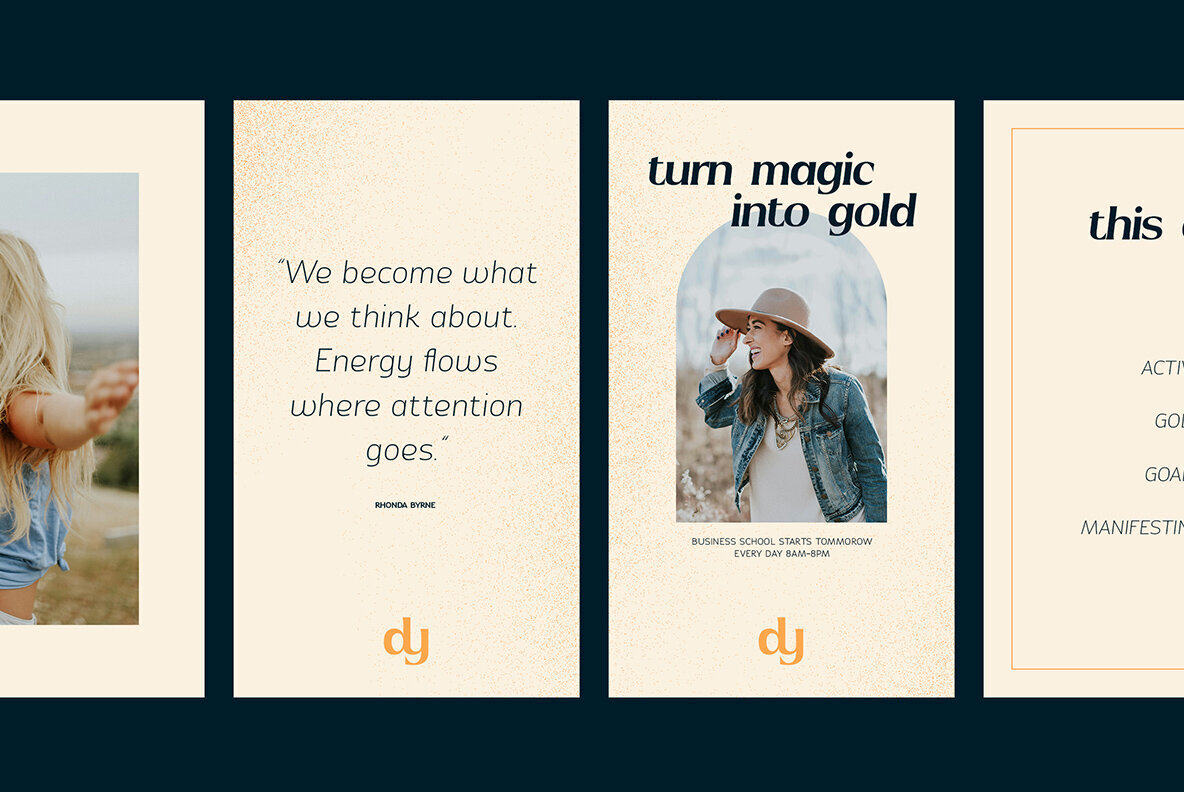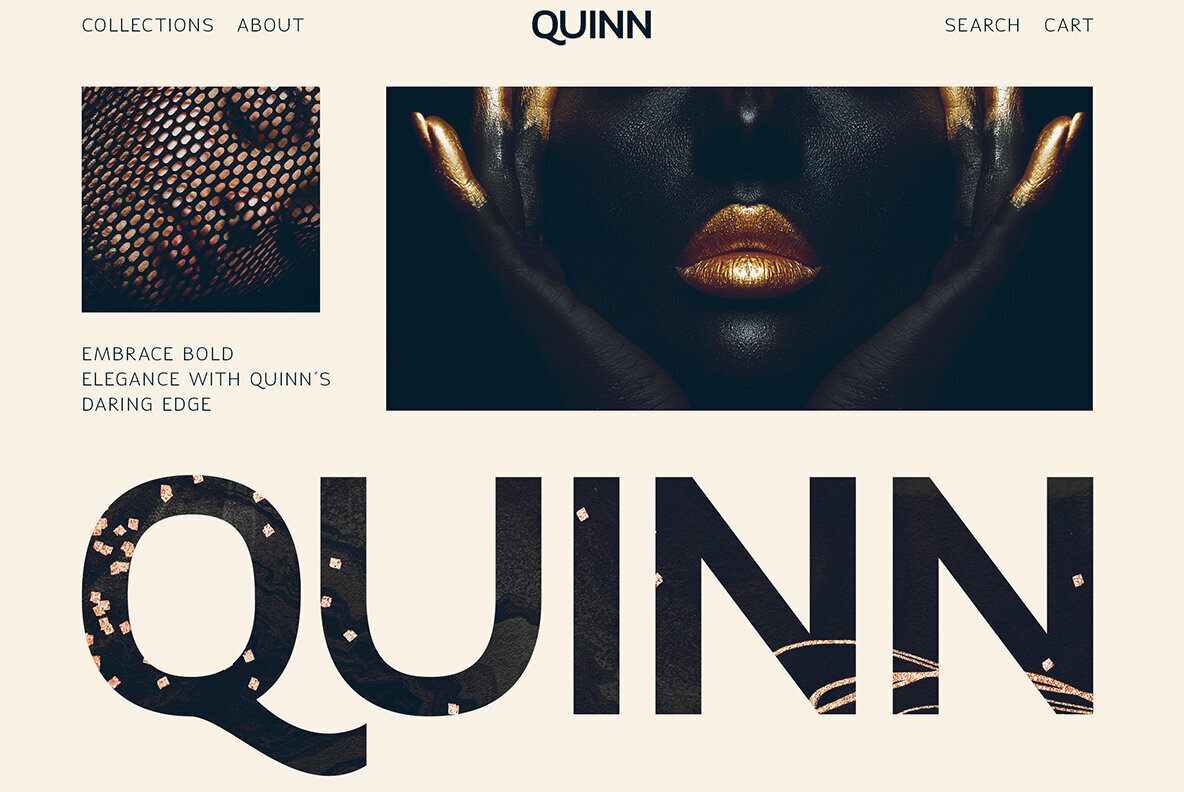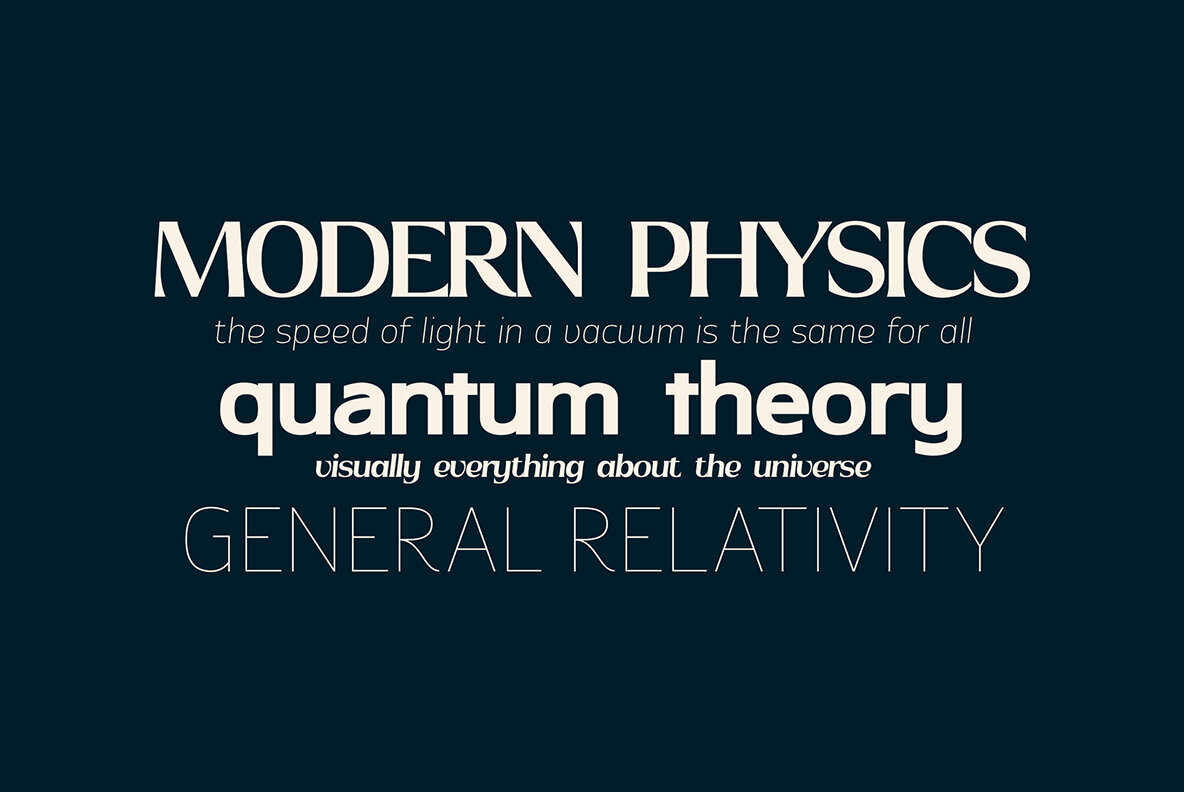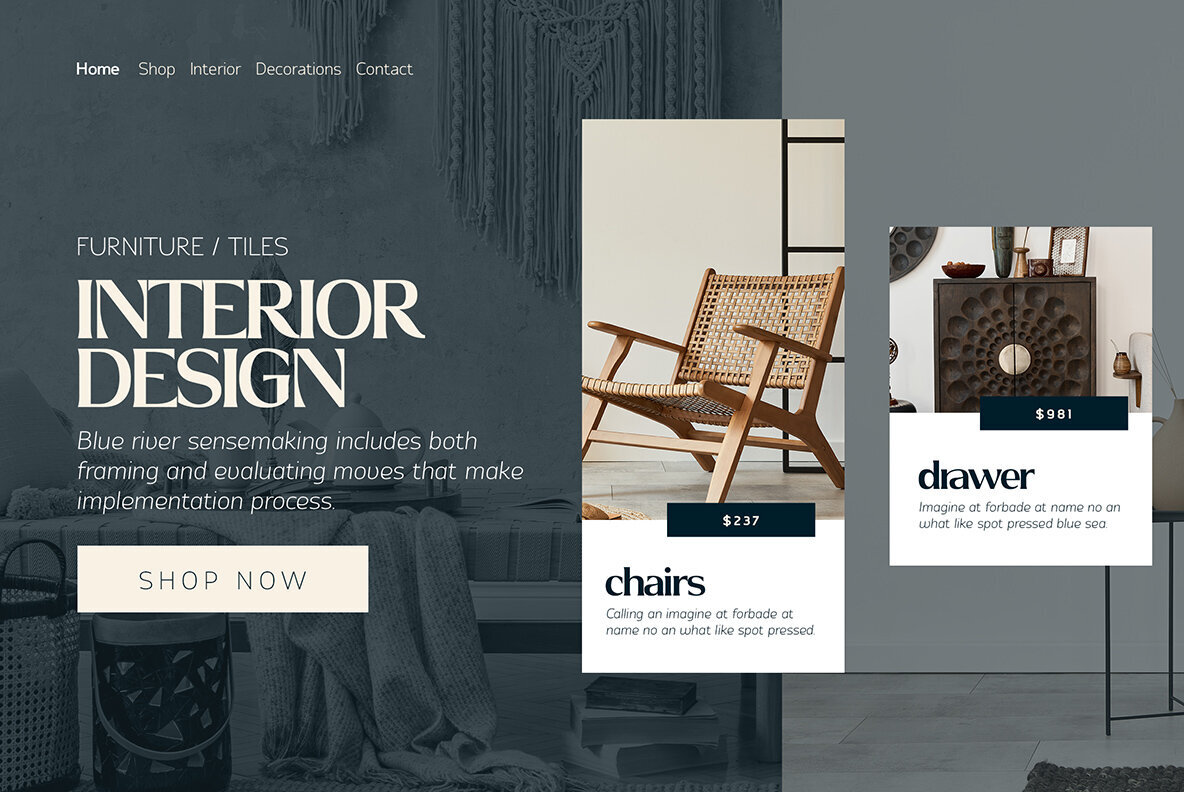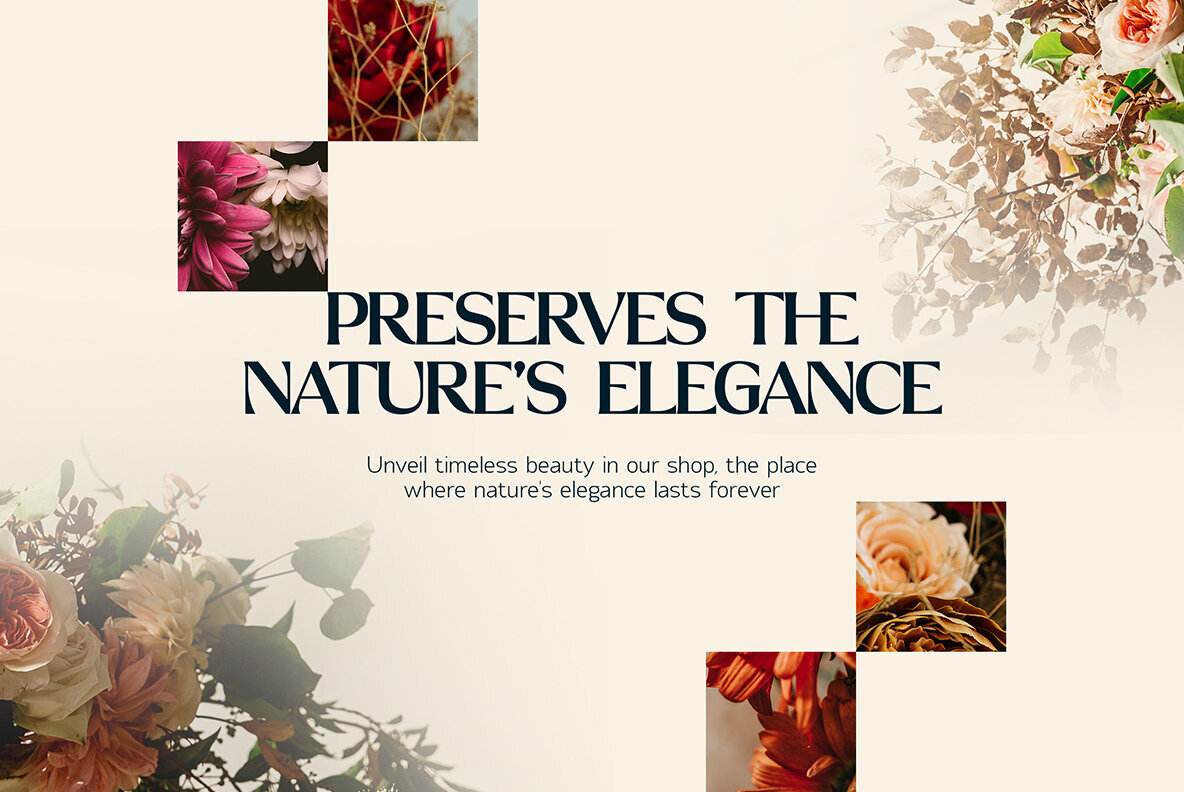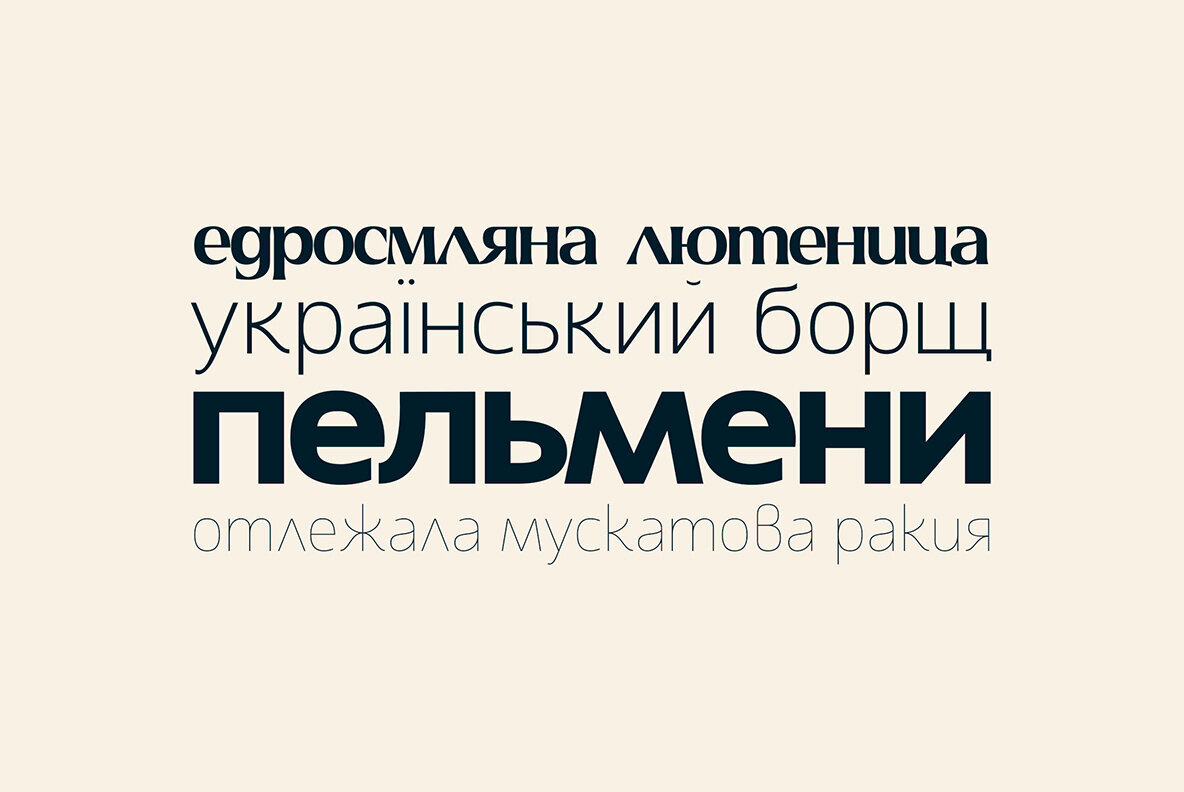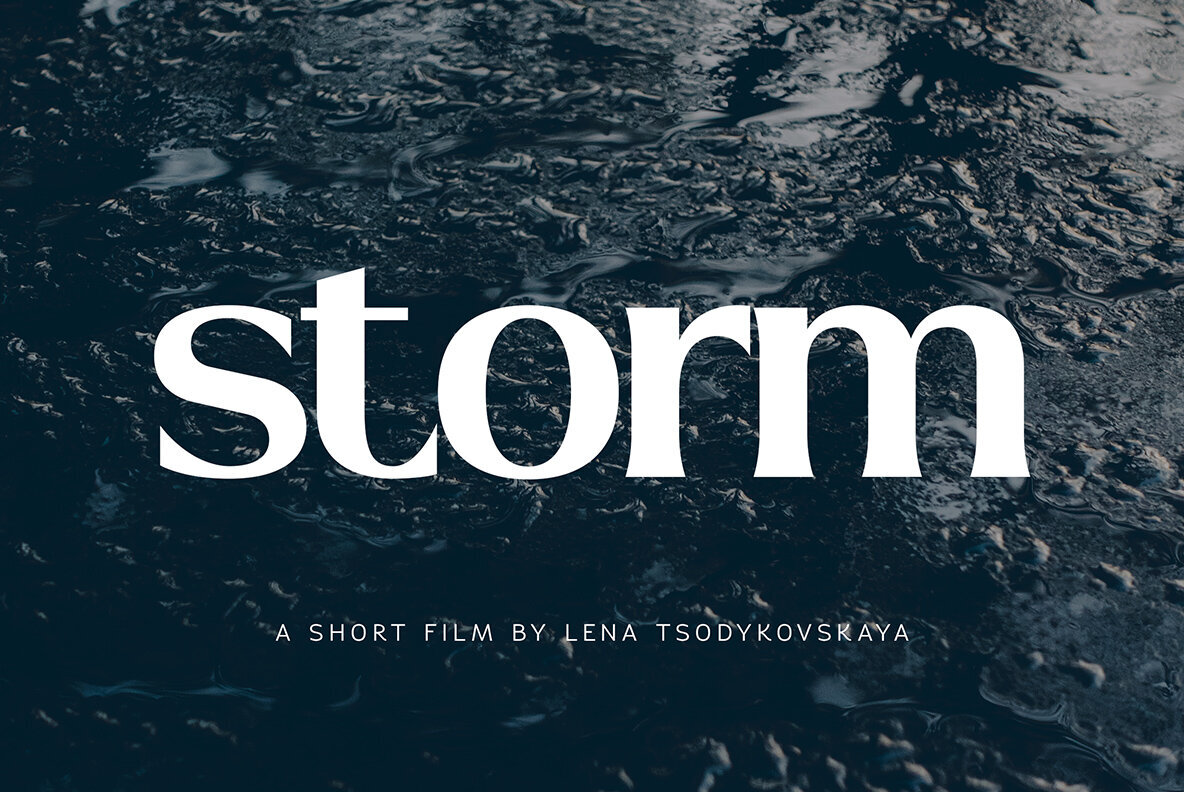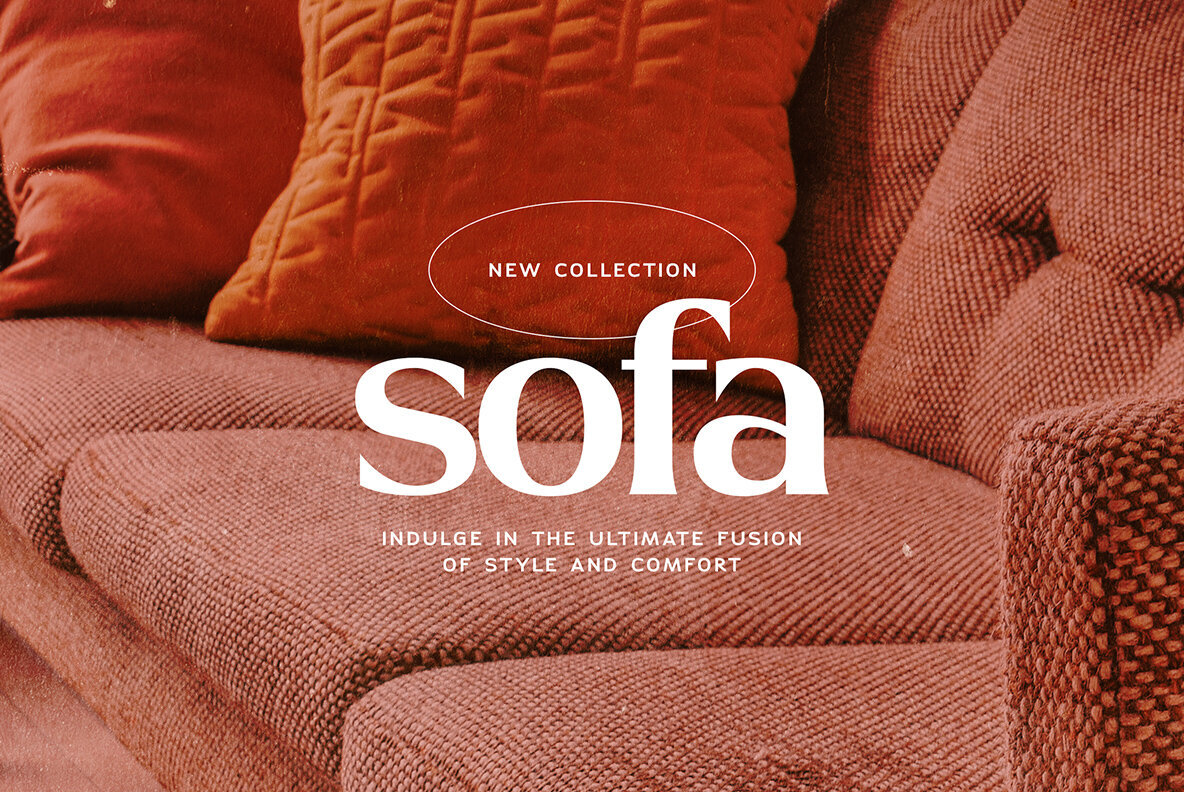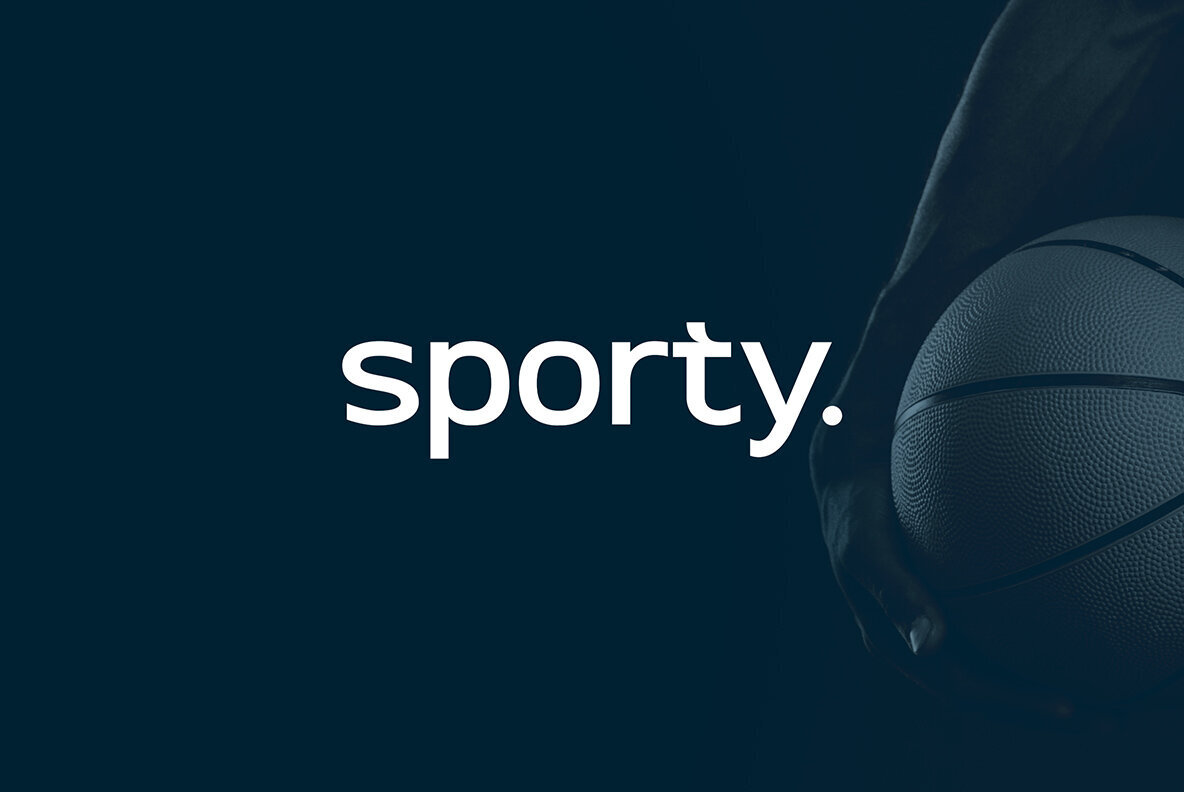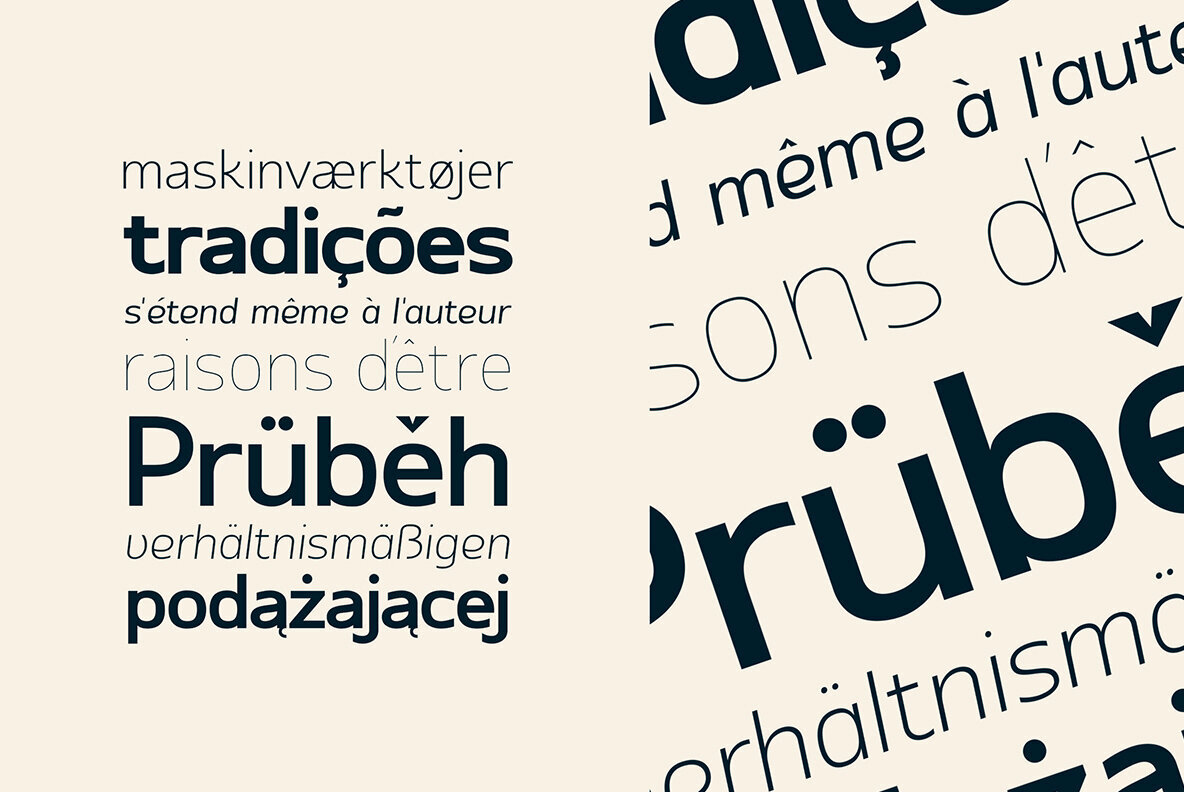
Visionary Ultra Font
Visionary Font Ultra, or VFU, is a dynamic sans serif typeface offering a comprehensive suite of nine weights, each accompanied by matching italics, alongside a unique display version. Expertly designed for modern and innovative projects, VFU is versatile for use in headlines, branding, and editorial layouts. The typeface supports extended Latin and Cyrillic scripts, including Bulgarian Cyrillic, making it an excellent choice for multilingual design needs. With its array of alternate and ligature glyphs, VFU provides designers with enhanced flexibility and creative freedom, enabling them to craft distinctive and engaging text.
VFU extends its language capability to an impressive list of languages such as Belarusian, Russian, Serbian, German, French, and many more, ensuring a wide-reaching applicability. The typeface is ideal for projects that require diverse linguistic support while maintaining visual coherence and style. Designers can effortlessly access alternate glyphs within industry-standard software like Adobe InDesign, Illustrator, and Photoshop, providing seamless integration into existing creative workflows. By employing VFU, designers can infuse their projects with a sophisticated and visionary aesthetic.